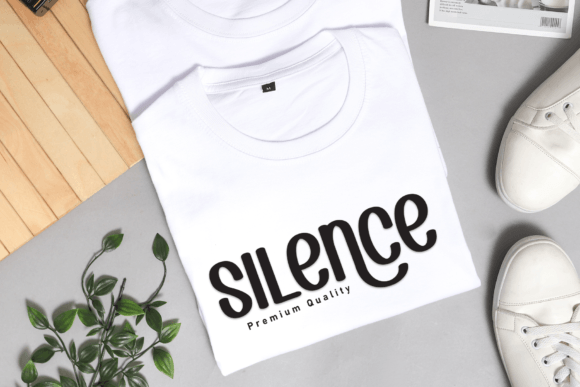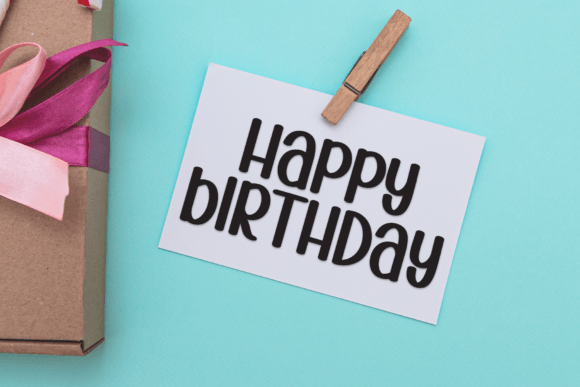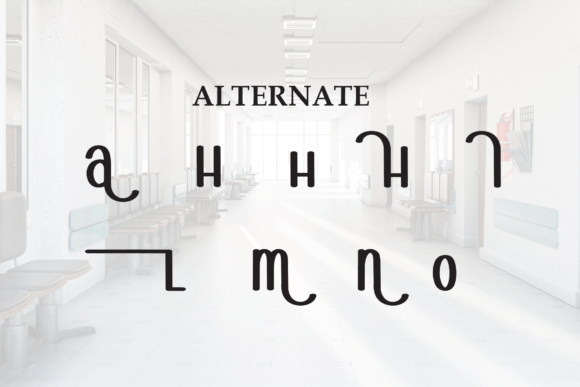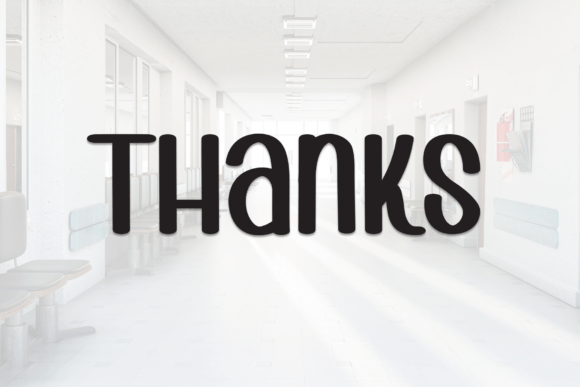
School Amazing Font
School Amazing is a sweet and friendly handwritten display font. Cute and fun, this font is ideal for writing wedding invitations, cards, or any other design that might need a fun touch!